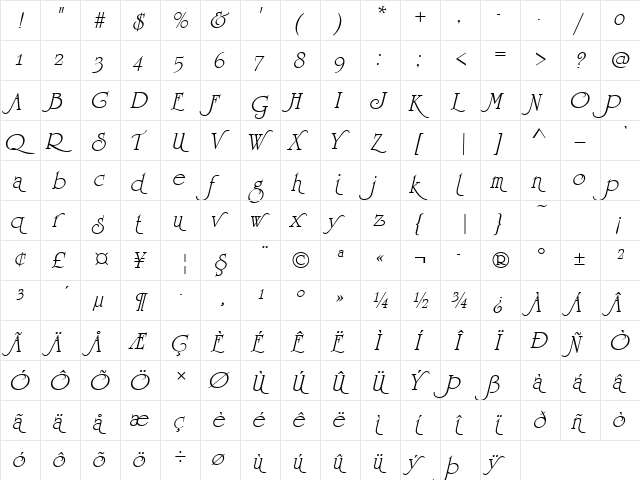
URWUndarumSwaT Italic
Design Context for URWUndarumSwaT Typeface
URWUndarumSwaT takes a measured approach to typography — its balanced proportions and neutral character make it a reliable workhorse for both digital and print work. The slanted form adds forward momentum and visual energy.
Pro Tip: Use URWUndarumSwaT for emphasis, pull quotes, and subheadings where its slanted energy can add rhythm to the layout.